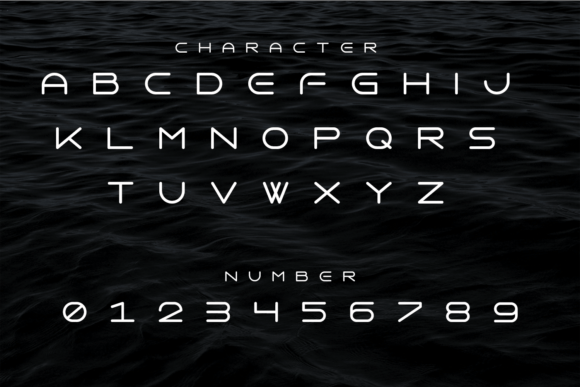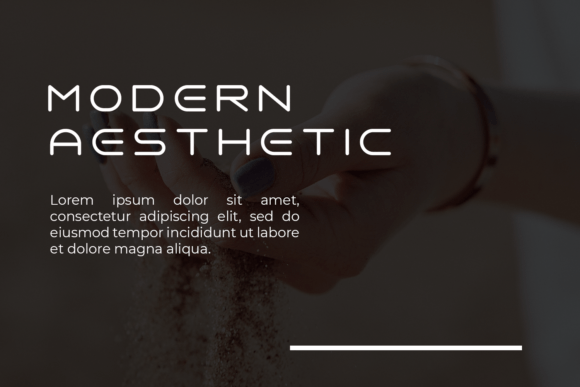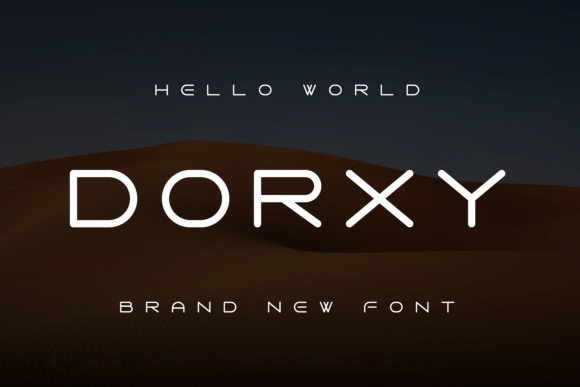
Introduction to Dorxy Font
Dorxy is a cool and modern sans serif font.
Why Choose Dorxy Font?
Dorxy Font offers exceptional quality and versatility, making it a valuable addition to your design toolkit. Whether you’re creating for personal projects or commercial use, Dorxy Font delivers professional results.